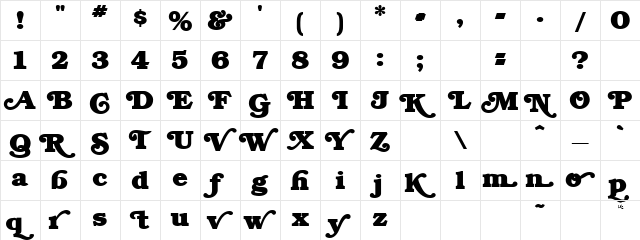
BrookmanSwash Normal Font Preview
BrookmanSwash Normal
BrookmanSwash Normal Font Details
Design Context for BrookmanSwash Typeface
BrookmanSwash flows with the natural rhythm of handwritten lettering, making it ideal for designs that call for warmth and personal expression.